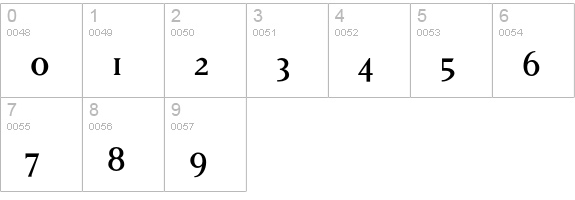
MatrixOldstyle Font Details
Introducing MatrixOldstyle font, a timeless and classic typeface inspired by vintage typewriter fonts. Its elegant and sophisticated design brings a touch of nostalgia to any project, making it perfect for creating a sense of old-world charm and authenticity. This versatile font is ideal for a wide range of design applications, from branding and packaging to editorial and signage. Its clean lines and distinctive characters make it easy to read while adding a touch of elegance to your designs. Best of all, MatrixOldstyle font is completely free to download at FontsMarket.com. Take advantage of this unique opportunity to add a touch of vintage flair to your projects without breaking the bank. Download MatrixOldstyle font today and elevate your designs with a touch of old-school charm.